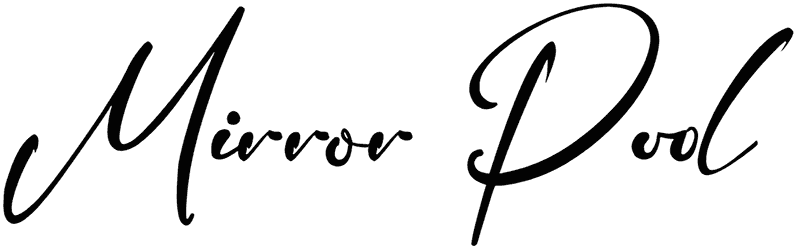
Mirror Pool Font
Say hello to Mirror Pool, a beautiful handwritten font that comes with a complete set of characters, even multilingual, but it’s not easily readable, especially in long text. It conveys a modern and professional feel that makes your project more stunning. This elegant script font is the best choice for album covers, fashion magazines, brand design, posters, and advertising.